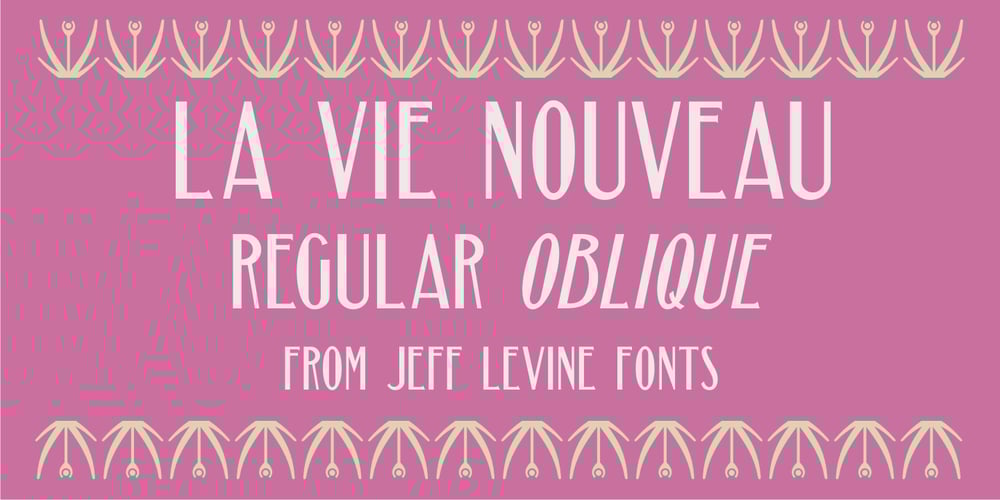
La Vie Nouveau JNL Font Family was designed by Jeff Levine and published by Jeff Levine. La Vie Nouveau JNL contains 2 styles and family package options. Early 1900s songwriters had a penchant for devising lengthy titles for their compositions. A perfect example from 1909, “It Is Hard to Kiss Your Sweetheart When the Last Kiss Means ‘Good Bye'” is a whopping fourteen words long. The sheet music for this piece has a hand lettered, Art Nouveau sans serif design which became the working model for La Vie Nouveau JNL [which translates to “the new life”], and is available in both regular and oblique versions.